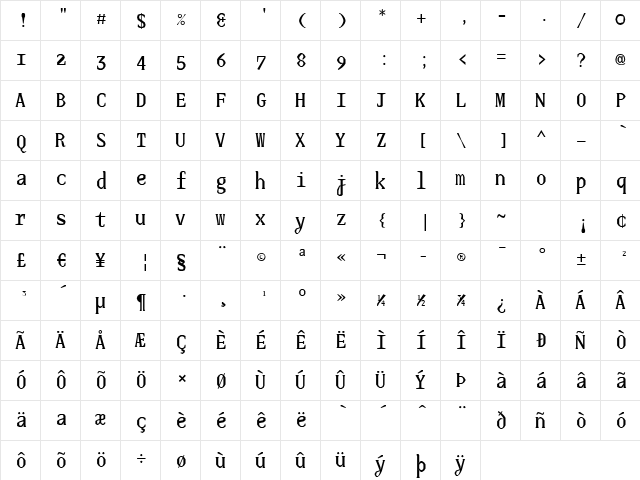
JUstice Mono Regular Font Preview
JUstice Mono Regular
Design Context for JUstice Mono Typeface
JUstice Mono brings the precise, column-aligned rhythm of monospaced typography to designs that value technical clarity and systematic order.
A natural fit for code editors, technical documentation, developer-focused branding, and terminal-inspired UI.